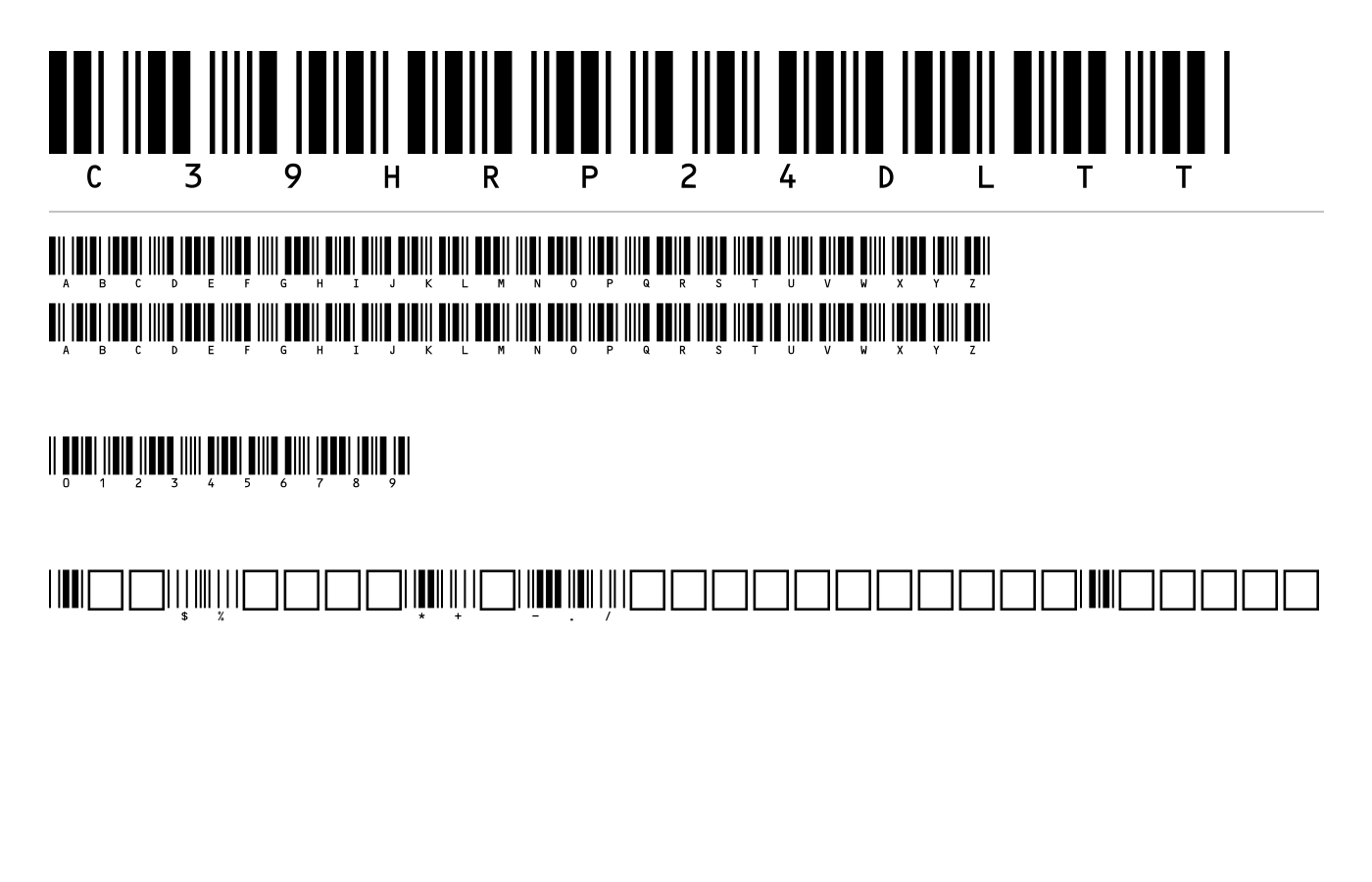
The C39HrP24DlTt font is a barcode-style typeface characterized by a series of vertical black bars of varying thickness and spacing that encode alphanumeric characters. It is a monospace, modern, and functional display font designed primarily for technical or industrial uses such as product labeling, inventory tracking, or digital encoding, rather than traditional text reading. This font works best in contexts where barcode scanning or a high-tech, utilitarian aesthetic is needed, providing a clear and efficient visual language for data representation.
C39HrP24DlTt Font
About C39HrP24DlTt Font
| Font family | C39HrP24DlTt Font |